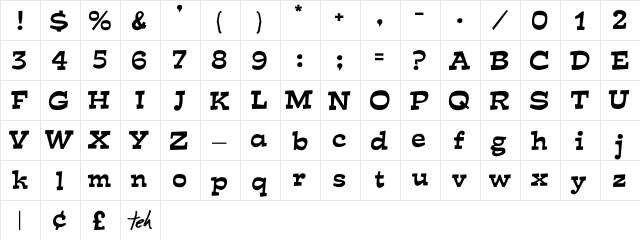
Mirisch Regular
Design Context for Mirisch Typeface
Mirisch offers clean, dependable letterforms without strong stylistic allegiance, making it a practical choice for designers who need flexibility.
Pro Tip: Pair Mirisch with a font of contrasting weight or personality to build a more expressive typographic hierarchy.